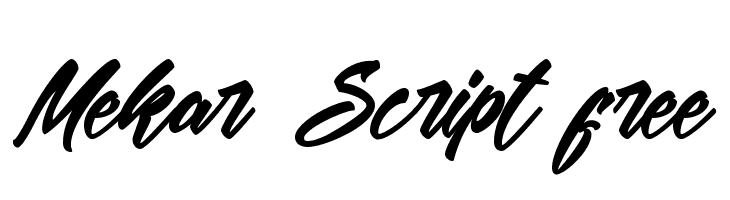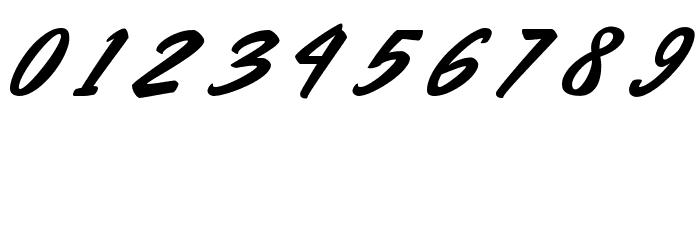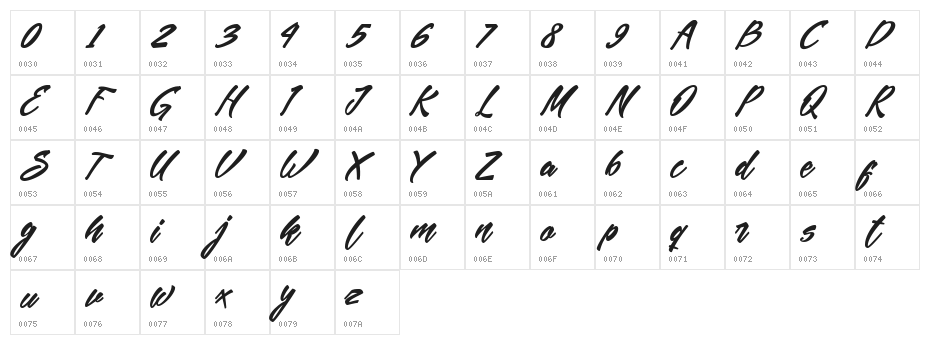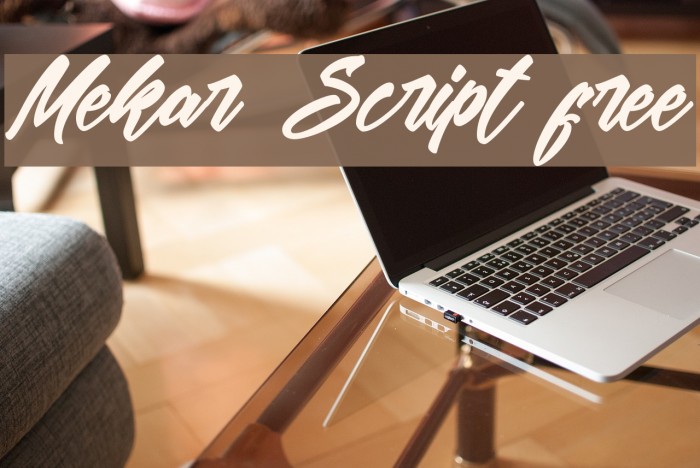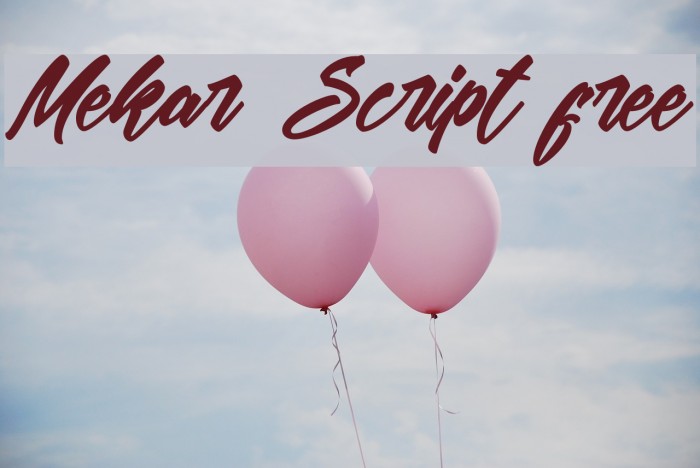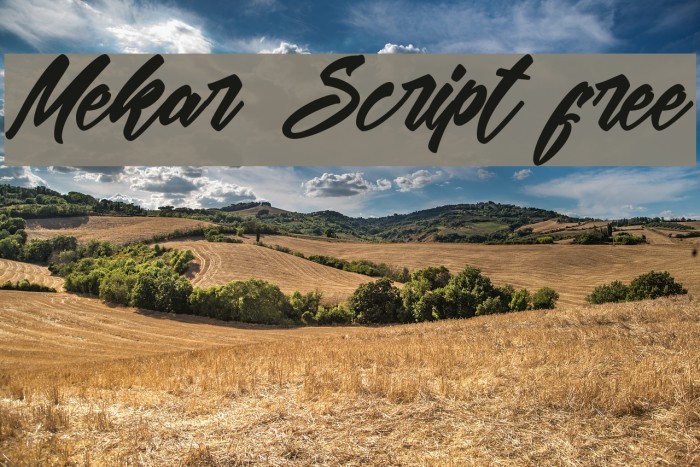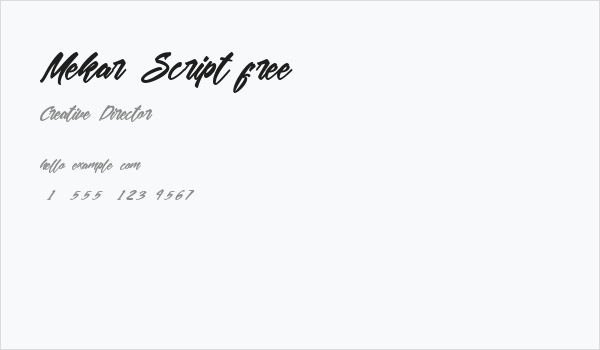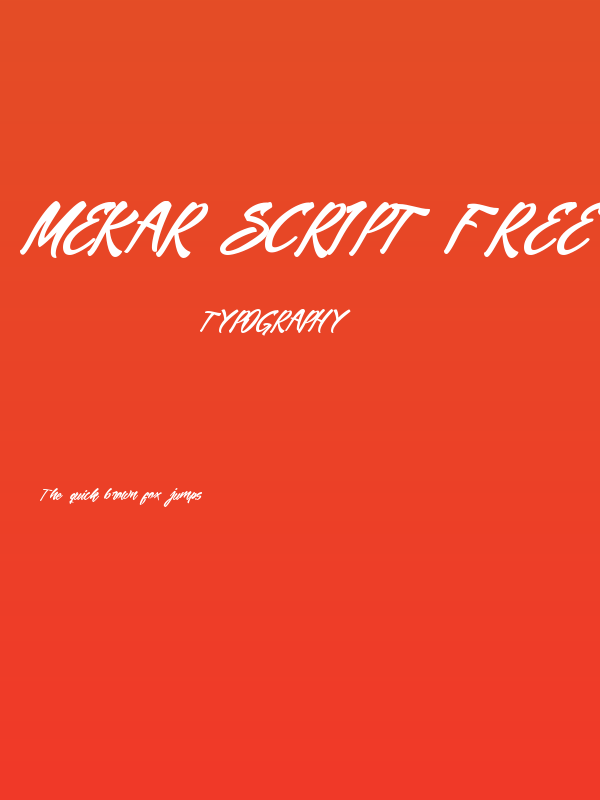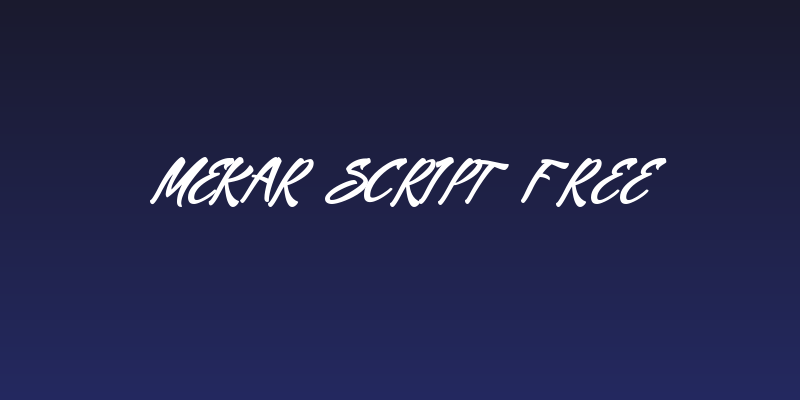
Mekar Script free Font
Mekar Script free Description
This font exhibits a dynamic and fluid script style, characterized by its bold and expressive strokes. The letters are interconnected, creating a seamless flow that mimics natural handwriting. The uppercase letters maintain a consistent height, while the lowercase letters vary slightly, adding to the organic feel. The numbers and special characters are crafted with the same attention to detail, ensuring uniformity across the set. This font's energetic and lively appearance makes it suitable for projects that require a personal touch or a sense of movement and creativity.
Use CaseLogos, Headlines, Invitations
Proposed ProjectsIdeal for invitations, greeting cards, branding, and any design requiring a personal, handwritten touch.